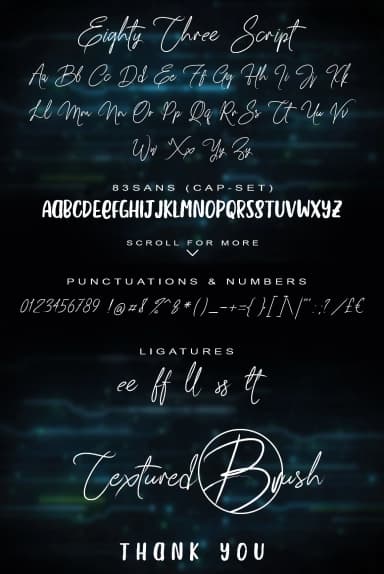
1 / 6About 83 Script Font
83 Script Font by beeart009 is a signature-style script that balances flowing letterforms with refined elegance across a thoughtfully designed font duo. The collection pairs the expressive 83 Script with its complementary 83 Sans, giving designers the flexibility to work with full script expressiveness or opt for a cleaner sans option depending on their project needs. The script maintains a naturally organic quality despite its polished, sophisticated appearance, making it equally suited for both formal occasions and contemporary design work.
This font pair brings personality to wedding invitation suites, where the flowing script draws attention to event details while the sans variant manages secondary information with restraint. It's well-suited for boutique beauty brand packaging, where cursive letterforms suggest handmade care, as well as personalized greeting cards that feel professionally crafted. Designers also turn to it for developing signature logo marks for lifestyle businesses and creating product labels that stand out on retail shelves. The clean letterforms and intentional spacing ensure legibility across scales, whether the script appears as a delicate accent on packaging or as an enlarged focal point in signage.
83 Script Font is a script font that shines as a display or heading face. Pair it with a clean sans-serif or serif font for body text β the contrast creates a clear hierarchy while the two styles stay balanced and easy to read.
83 Script Font
by beeart009